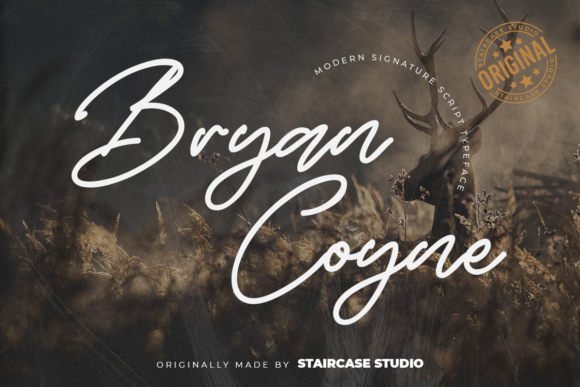
Bryan Coyne Font: A Timeless Handwritten Font for Stunning Designs
Bryan Coyne is a lovely and timeless handwritten font that has been making waves in the design world. It’s the perfect choice for creating eye-catching logos, branding, and quotes that leave a lasting impression. With its unique and beautiful touch, every letter in this font is designed to make your design come alive!
Handwritten fonts have a special place in the world of design. They add a personal touch to any project, making it feel more approachable and human. Unlike generic fonts, handwritten fonts have a unique character that sets them apart. They can evoke emotions, convey personality, and create a lasting impression on the viewer. Bryan Coyne font is no exception. Its elegant and flowing script is perfect for designs that require a touch of sophistication and whimsy.
What Makes Bryan Coyne Font Special?
So, what makes Bryan Coyne font stand out from the rest? Here are a few features that make it a favorite among designers and crafters:
- Unique Letterforms: Every letter in the Bryan Coyne font has a unique and beautiful touch. The font is designed to mimic the natural flow of handwriting, with subtle variations in size, shape, and style.
- Timeless Appeal: The font has a timeless quality that makes it suitable for a wide range of projects, from vintage-inspired designs to modern and minimalist creations.
- Versatility: Bryan Coyne font is incredibly versatile and can be used for a variety of projects, including logos, branding, quotes, and more.
- Ease of Use: The font is easy to read and works well in both digital and print formats.
Uses for Bryan Coyne Font
Bryan Coyne font is perfect for a wide range of design projects. Here are a few ideas to get you started:
- Logo Design: Create a stunning logo for your business or brand with Bryan Coyne font. Its unique letterforms and timeless appeal make it perfect for creating a memorable logo.
- Branding: Use Bryan Coyne font to create a consistent brand identity across all your marketing materials, from business cards to website headers.
- Quotes and Posters: Add a touch of elegance and sophistication to your quotes and posters with Bryan Coyne font.
- Wedding and Event Stationery: Make your wedding or event stationery stand out with Bryan Coyne font. Its whimsical and romantic feel is perfect for creating beautiful invitations, save-the-dates, and more.
Tips for Using Bryan Coyne Font
Here are a few tips to help you get the most out of Bryan Coyne font:
Bryan Coyne font is a beautiful and timeless handwritten font that is perfect for creating stunning designs. Its unique letterforms, timeless appeal, and versatility make it a favorite among designers and crafters. Whether you’re looking to create a logo, branding, or quotes, Bryan Coyne font is the perfect choice. So why wait? Give Bryan Coyne font a try today and see the difference it can make in your designs!